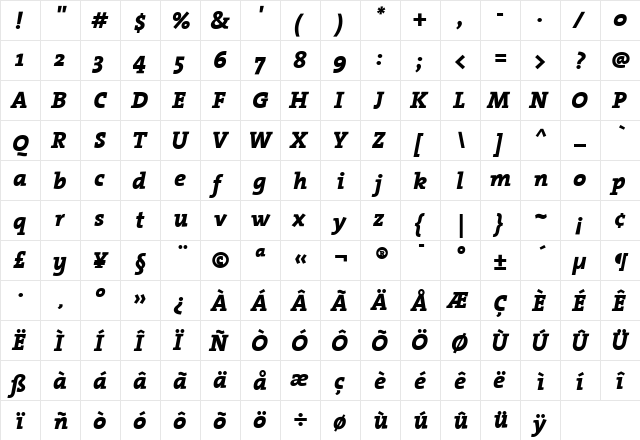
The Serif Extra Bold- Regular
Design Context for The Serif Extra Bold- Typeface
The Serif Extra Bold- brings classic typographic sensibility to the table — its serifs and measured letterforms reflect centuries of print heritage. The heavy weight commands attention and anchors typographic hierarchies.